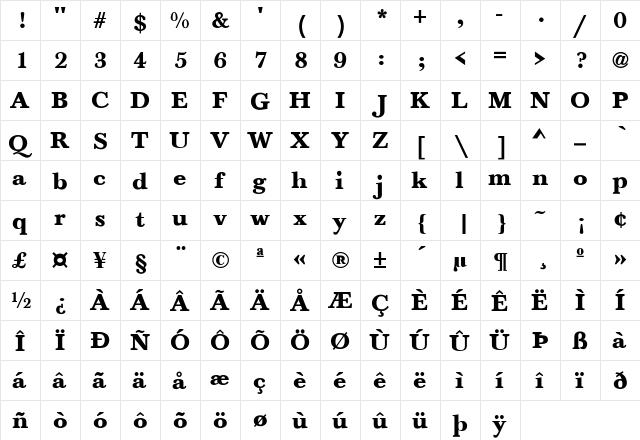
Bartholomew-Bold Regular Font Preview
Bartholomew-Bold Regular
Bartholomew-Bold Regular Font Details
Design Context for Bartholomew-Bold Typeface
Bartholomew-Bold offers clean, dependable letterforms without strong stylistic allegiance, making it a practical choice for designers who need flexibility. Its bold stroke weight gives it real presence on the page.